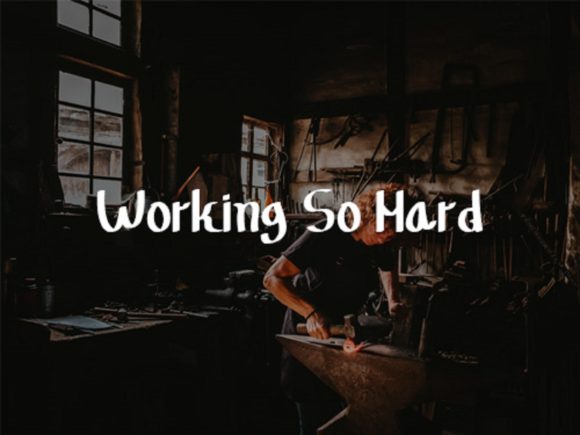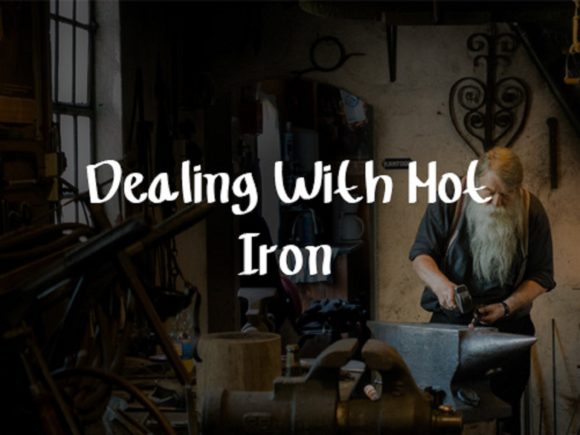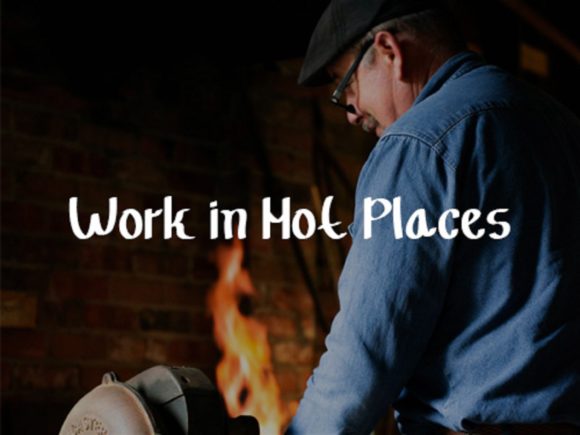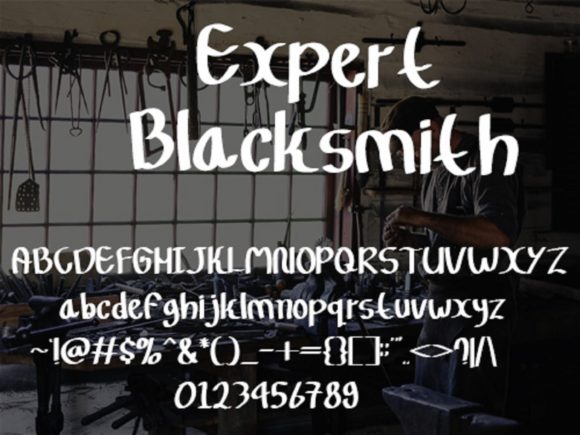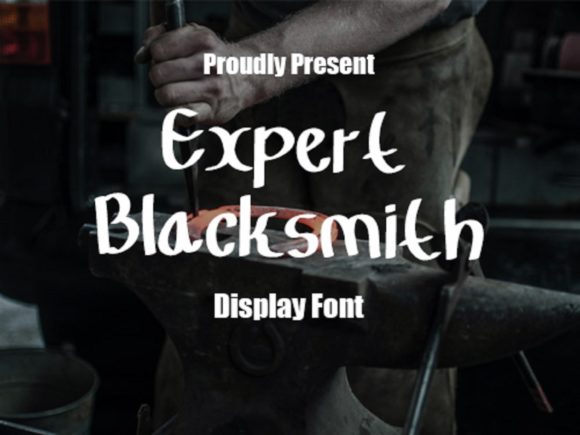
Unleash Your Creativity with Expert Blacksmith Font
Are you a designer, crafter, or DIY enthusiast looking for a font that can add a touch of uniqueness to your projects? Look no further than the Expert Blacksmith Font. This sweet and cool-looking display font is perfect for a wide range of designs, from rustic and vintage to modern and edgy. With its natural and distinctive style, Expert Blacksmith Font is sure to inspire your creativity and take your designs to the next level.
The Versatility of Expert Blacksmith Font
One of the standout features of Expert Blacksmith Font is its incredible versatility. Its natural and unique style makes it incredibly fitting to a large pool of designs, and the only limit is your imagination! Whether you’re creating a logo, poster, or social media graphic, Expert Blacksmith Font is the perfect choice. Its rustic charm and industrial edge make it perfect for designs that require a touch of ruggedness, while its elegant lines and curves make it suitable for more refined and sophisticated designs.
Design Possibilities with Expert Blacksmith Font
The design possibilities with Expert Blacksmith Font are endless. Here are a few ideas to get you started:
- Logos and Branding: Use Expert Blacksmith Font to create a unique and memorable logo for your business or brand. Its distinctive style will help you stand out from the competition and establish a strong brand identity.
- Posters and Flyers: Create eye-catching posters and flyers with Expert Blacksmith Font. Its bold and rugged style is perfect for promoting events, products, or services.
- Social Media Graphics: Use Expert Blacksmith Font to create engaging social media graphics that will help you connect with your audience. Its unique style will help your graphics stand out in a crowded feed.
- Crafting and DIY Projects: Expert Blacksmith Font is perfect for crafters and DIY enthusiasts who want to add a personal touch to their projects. Use it to create custom signs, labels, and other decorative elements.
Why Choose Expert Blacksmith Font?
So why choose Expert Blacksmith Font over other fonts? Here are a few reasons:
- Unique Style: Expert Blacksmith Font has a unique and distinctive style that will set your designs apart from the competition.
- High-Quality: Expert Blacksmith Font is a high-quality font that is designed to look great in any design.
Tips for Using Expert Blacksmith Font
Here are a few tips for using Expert Blacksmith Font:
- Use it bold: Expert Blacksmith Font looks great in bold, so don’t be afraid to use it to make a statement.
- Experiment with colors: Expert Blacksmith Font looks great in a variety of colors, so experiment with different colors to find the one that works best for your design.
- Pair it with other fonts: Expert Blacksmith Font can be paired with other fonts to create a unique and interesting design.
In conclusion, Expert Blacksmith Font is a sweet and cool-looking display font that is perfect for designers, crafters, and DIY enthusiasts. Its natural and unique style makes it incredibly fitting to a large pool of designs, and the only limit is your imagination! With its versatility, high-quality design, and affordability, Expert Blacksmith Font is the perfect choice for anyone looking to add a touch of uniqueness to their designs.